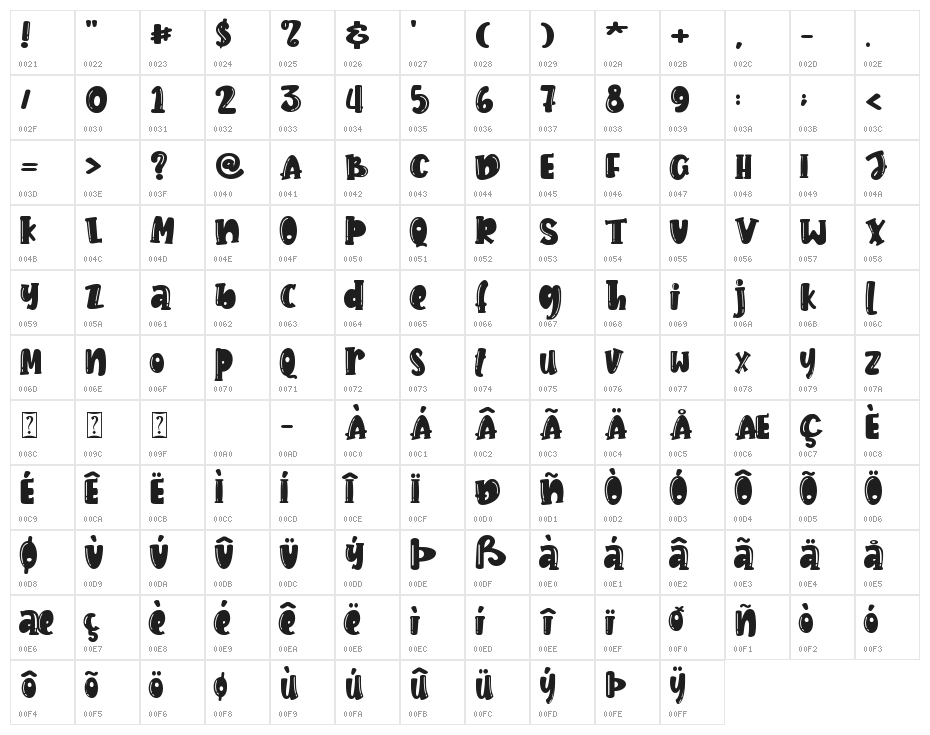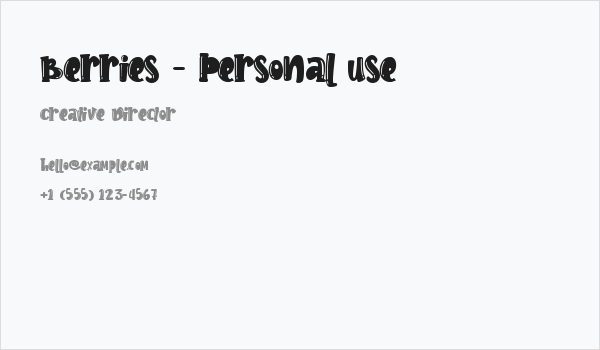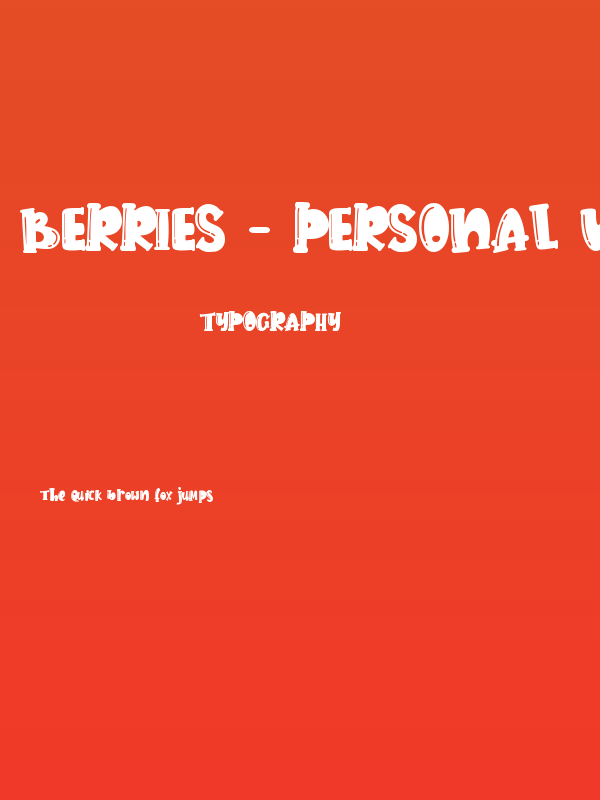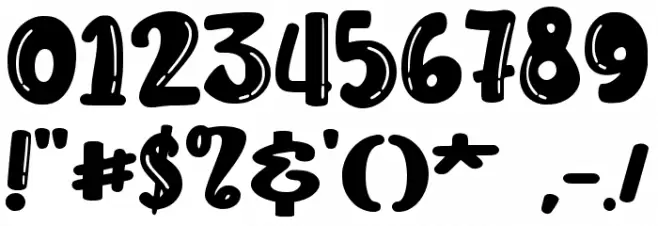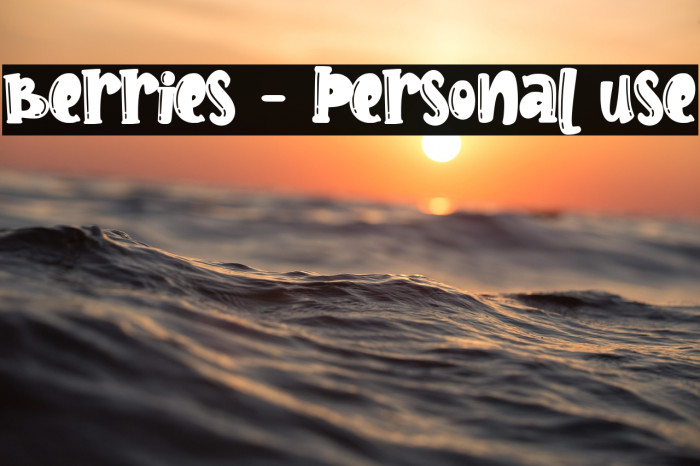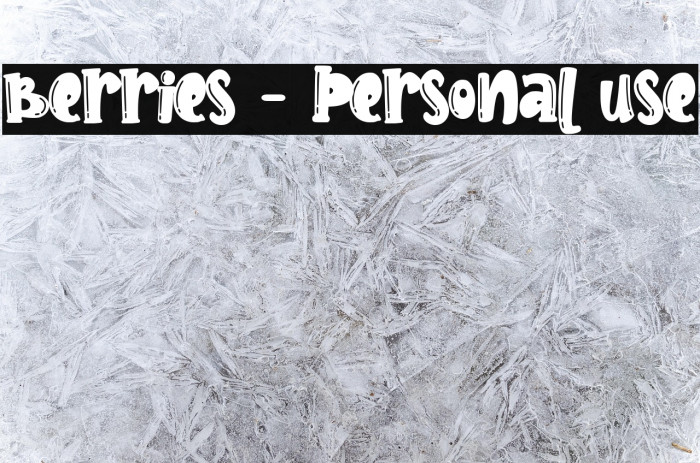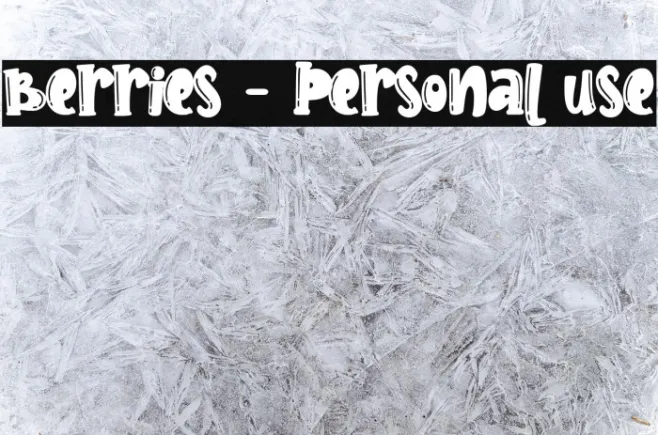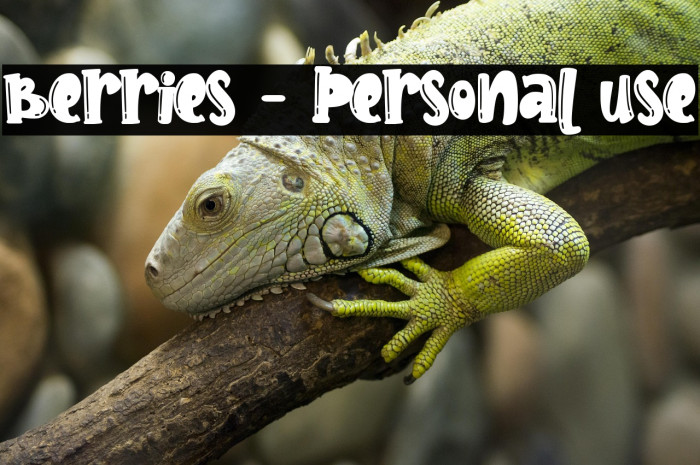
Berries - Personal use Font
Berries - Personal use Description
This playful and bold font features a whimsical design with exaggerated curves and a slightly uneven baseline, giving it a hand-drawn appearance. The uppercase letters are robust and dynamic, while the lowercase letters maintain a consistent style with a touch of flair. Numbers and special characters follow the same lively aesthetic, making the font suitable for creative and informal projects. The strokes are thick, providing a strong visual impact, and the overall design is both fun and approachable.
| Proposed Projects | Ideal for children's books, playful branding, party invitations, and creative posters. |